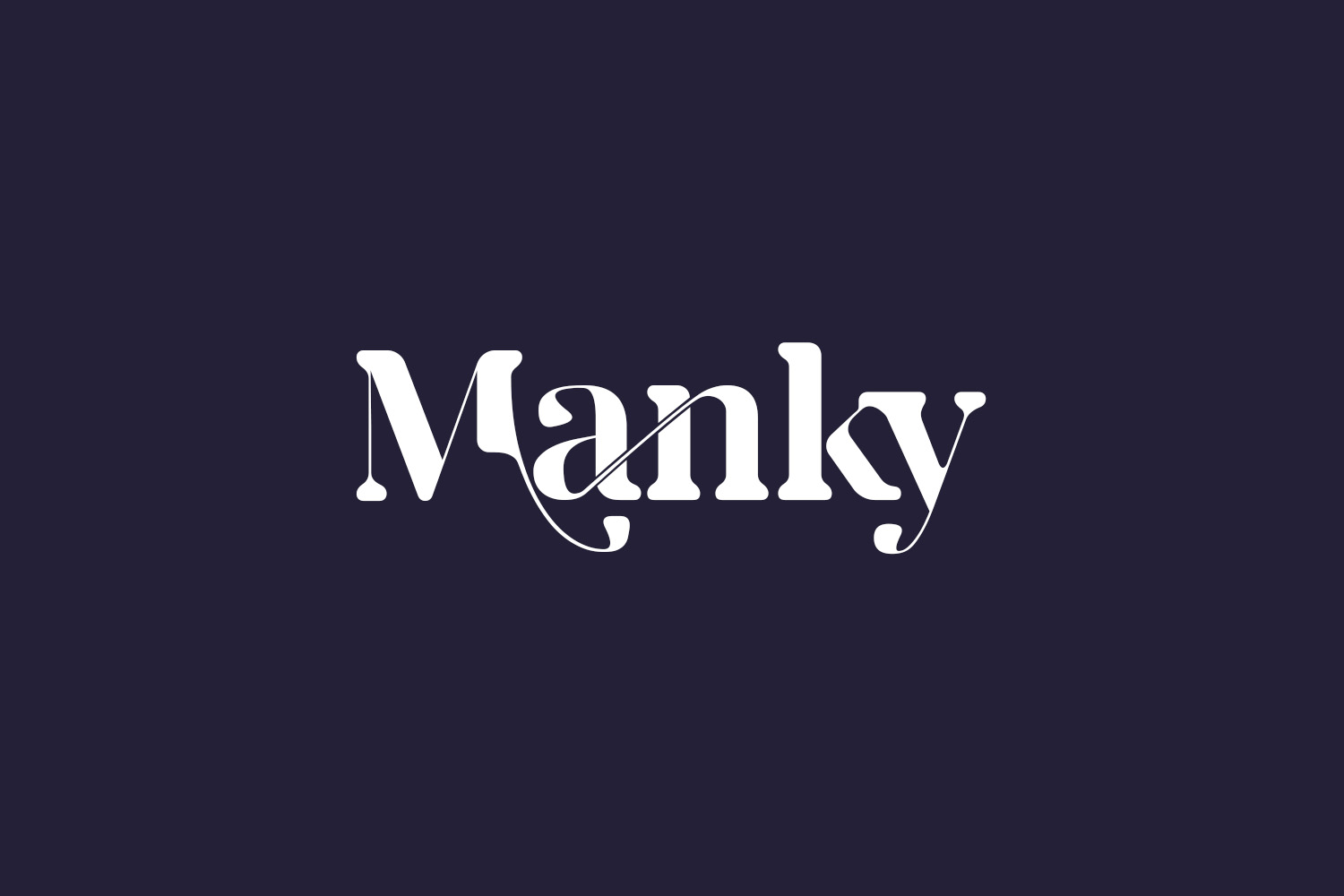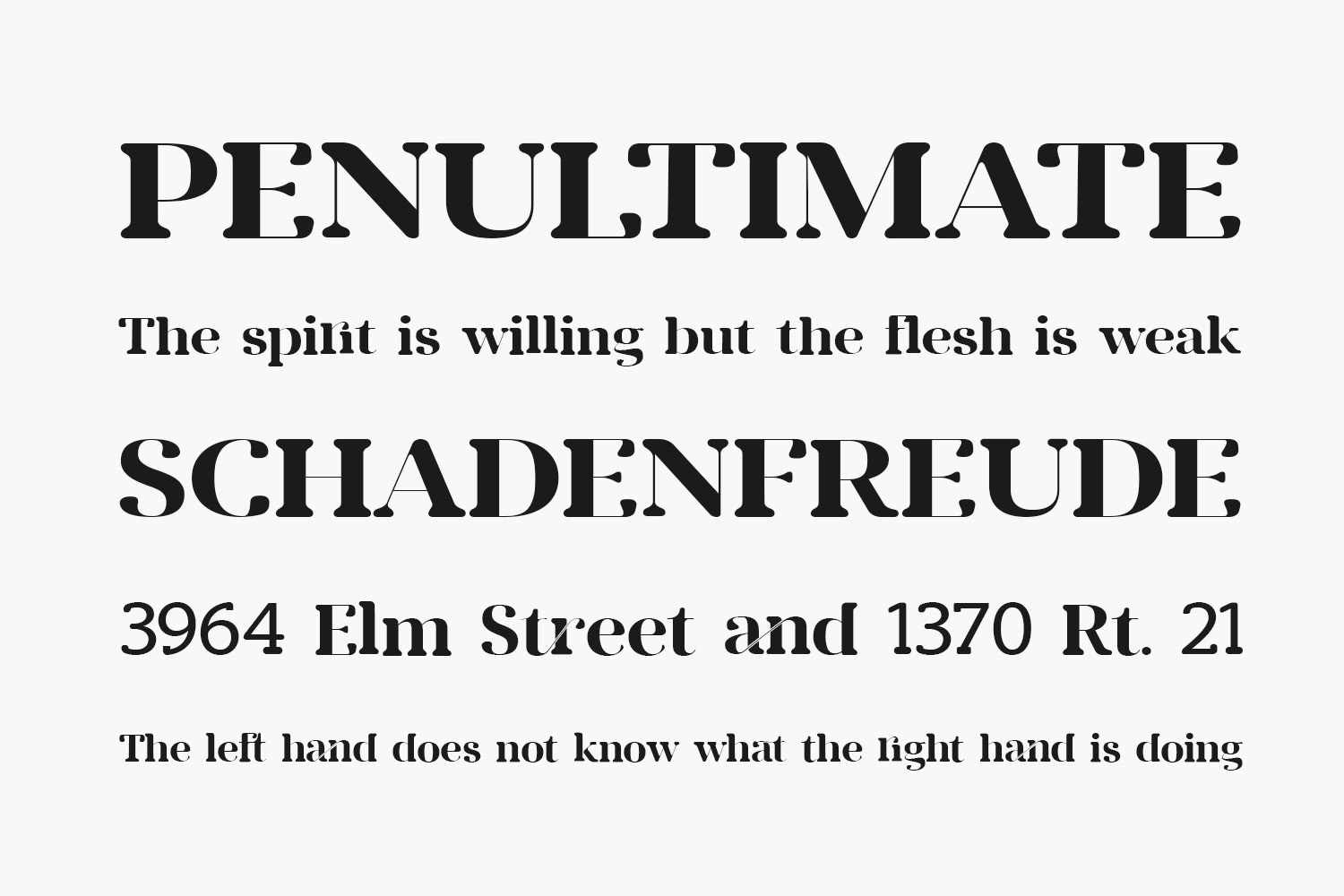
Manky Free Font is bold, thick lettered yet elegant serif font. It works great on a variety of formal and informal designs, so add it confidently to your creations, and you will love the outcome. Manky Free Font was designed by DYSA Studio and is free for personal use only. Please purchase the full version for commercial use.